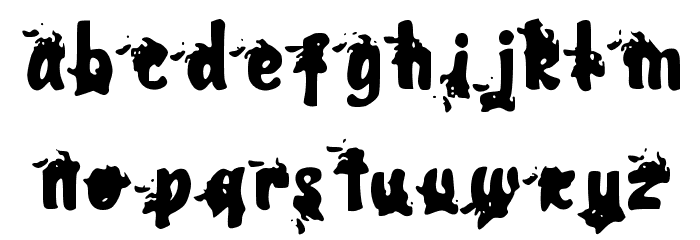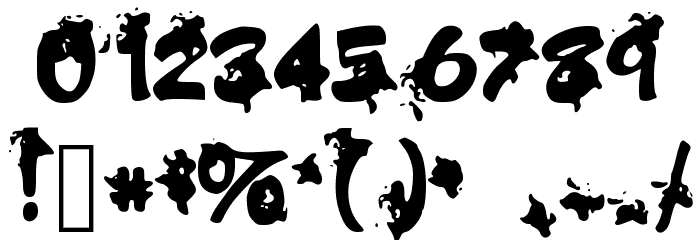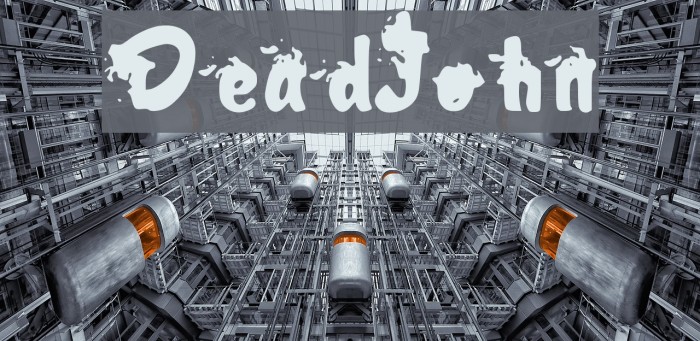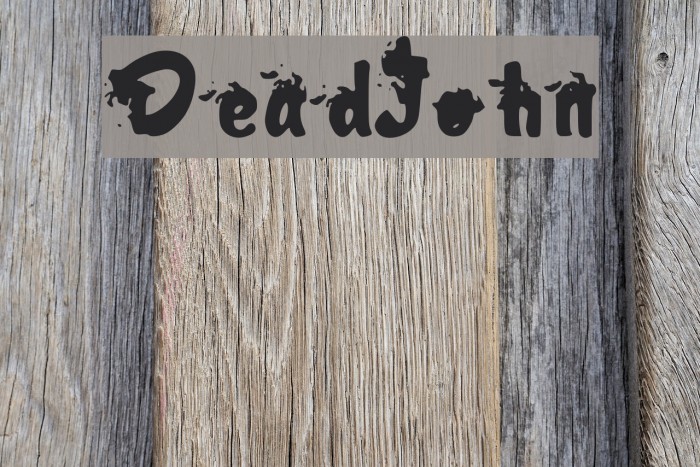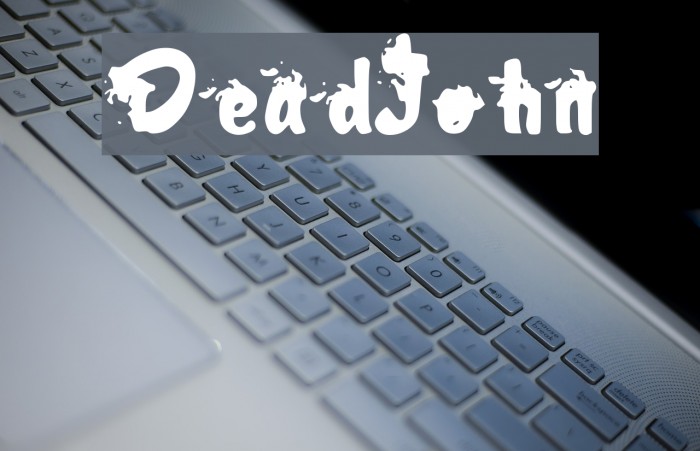
DeadJohn Font
This font features a bold and dramatic style with a splattered, grunge-like appearance. Each character is uniquely designed with irregular edges and ink blot effects, creating a chaotic yet artistic look. The uppercase and lowercase letters maintain a consistent theme, with numbers and special characters following suit. The overall design is reminiscent of graffiti or street art, making it ideal for projects that require a rebellious or edgy aesthetic. The font's distinctiveness lies in its ability to convey a sense of movement and energy, making it stand out in any design context.
A bold, grunge-style font with splattered, irregular edges.
- Proposed Projects: Ideal for album covers, posters, street art designs, and edgy branding projects.